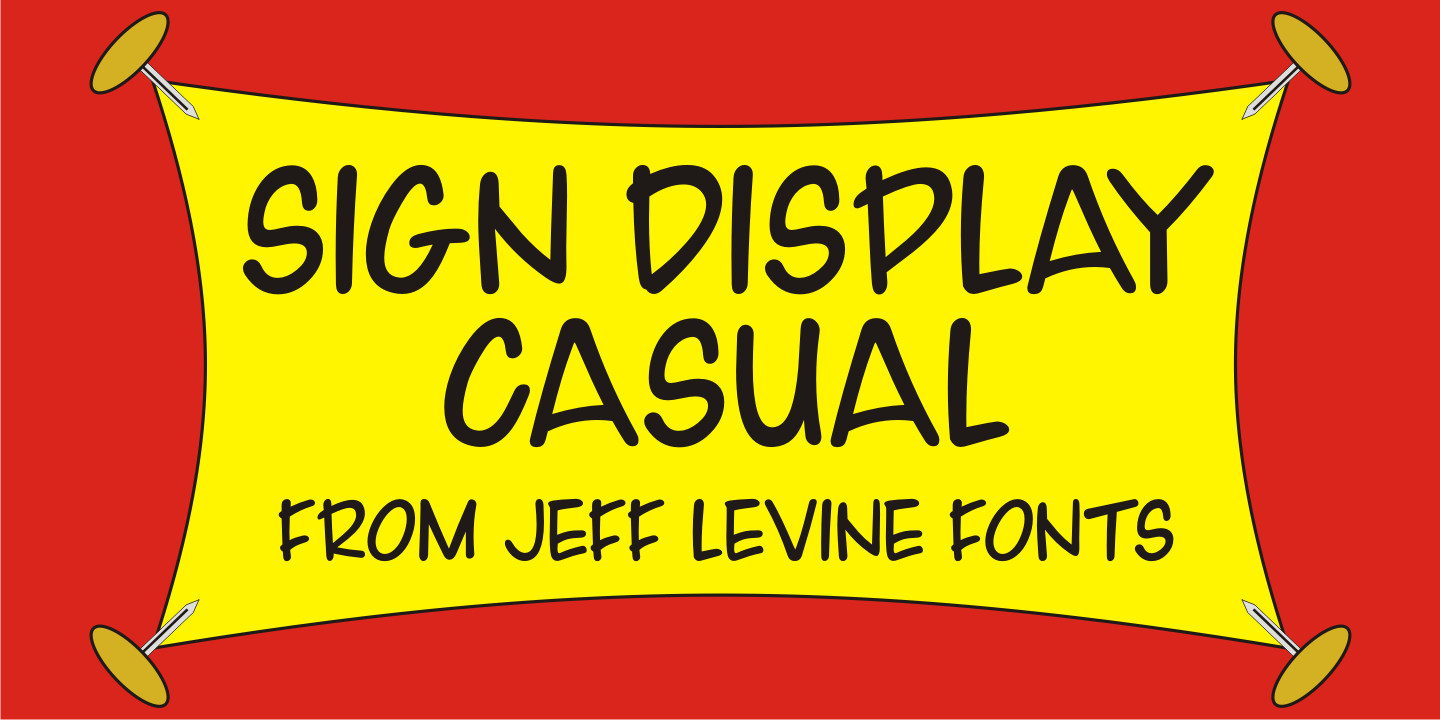
Sign Display Casual
A vintage hand lettered sign for a carnival game was the basis for Sign Display Casual JNL, a classic example of the 'one stroke' casual text lettering that sets sign painters apart from sign manufacturers.
Sign Display Casual JNL Regular by Jeff Levine Fonts